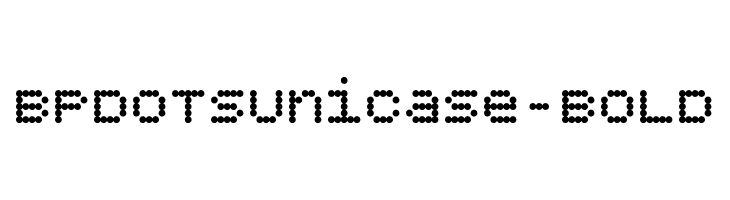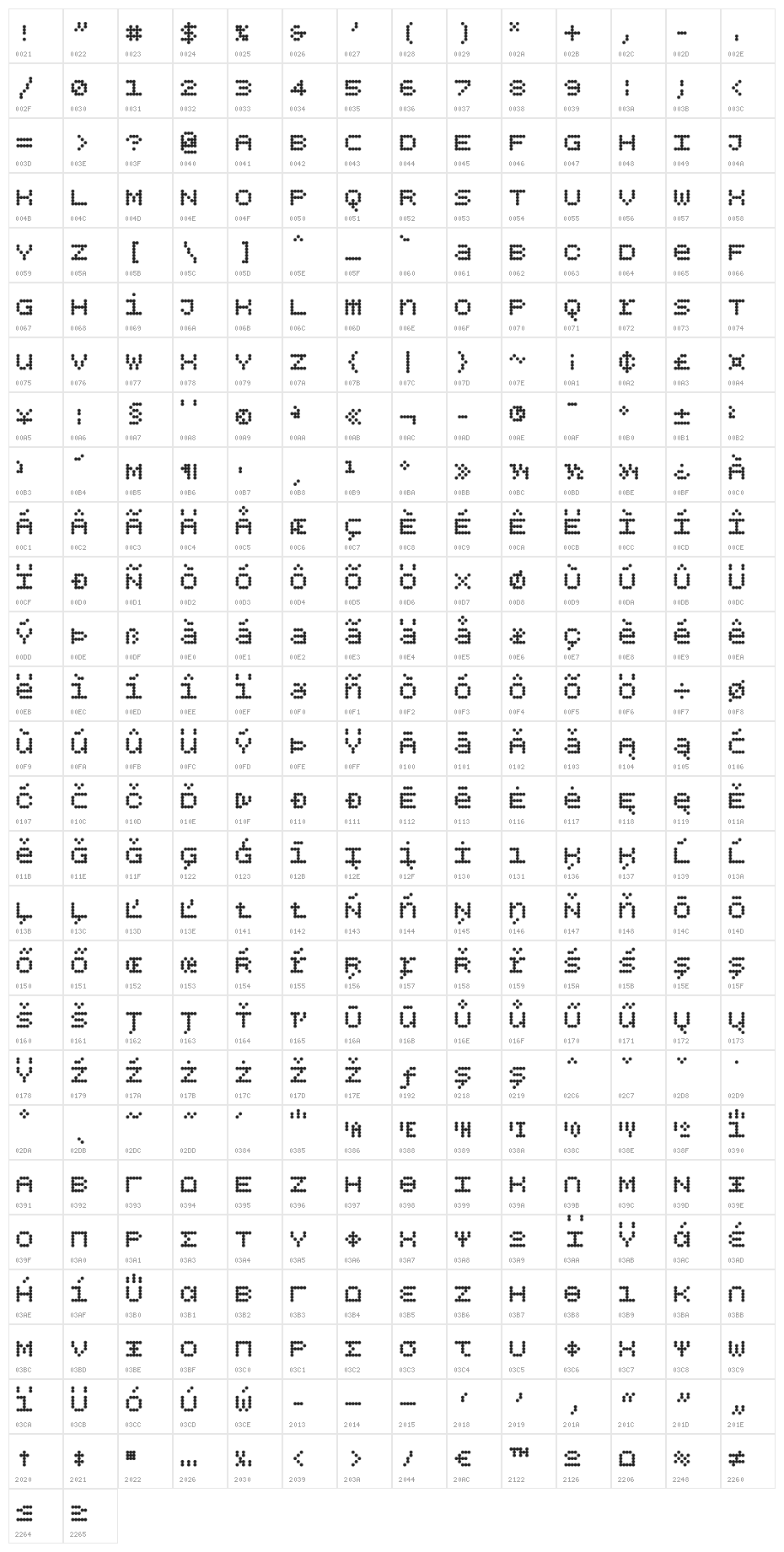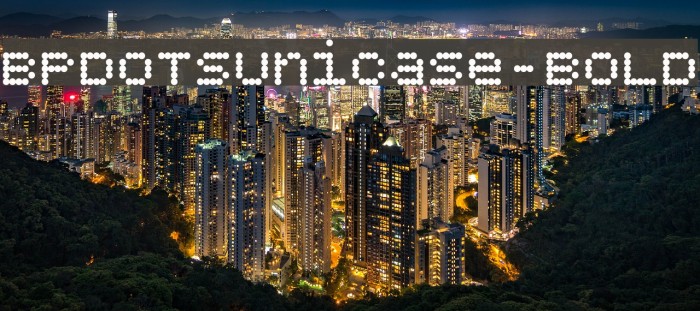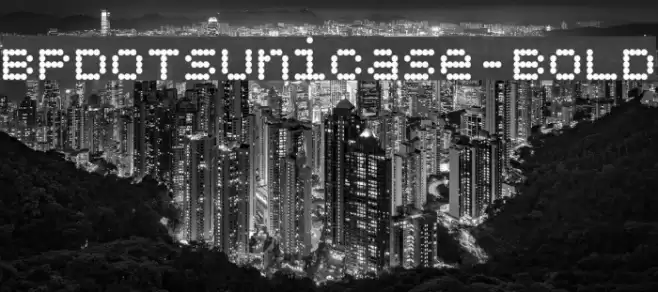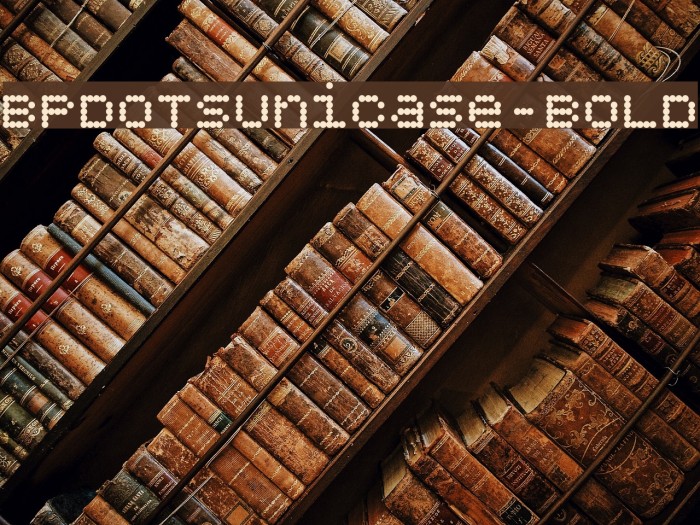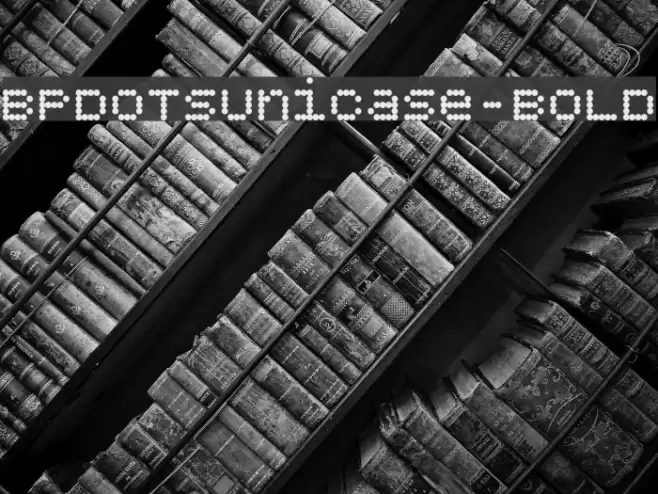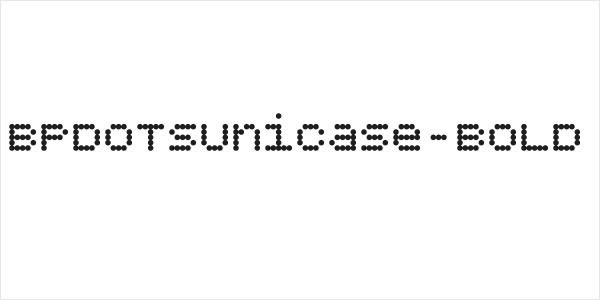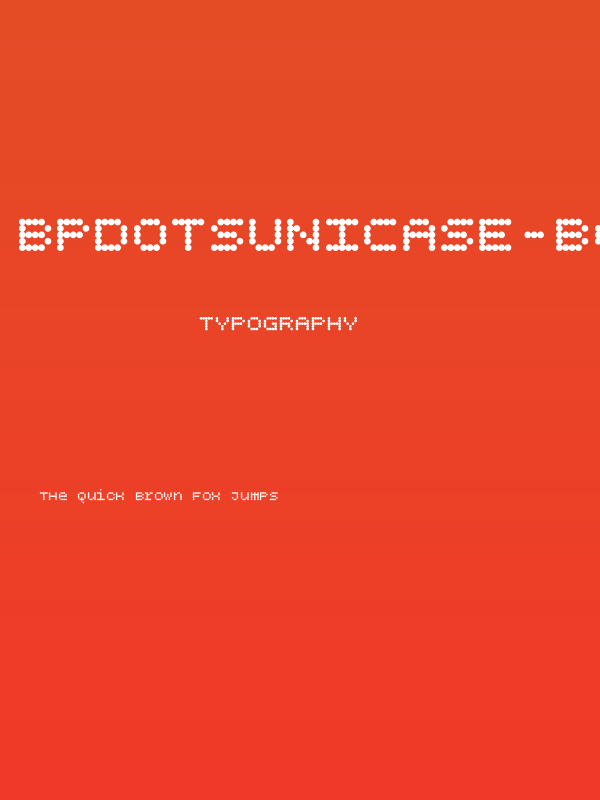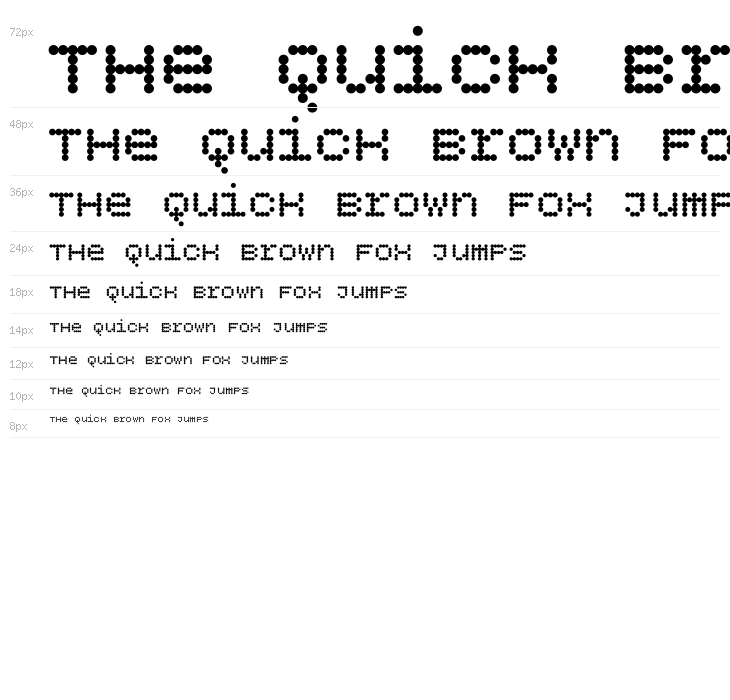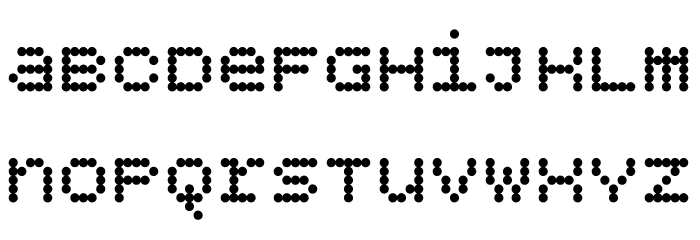
BPdotsUnicase-Bold Font
BPdotsUnicase-Bold Description
This font features a unique dotted design where each character is constructed from a series of evenly spaced dots, creating a modern and playful appearance. The characters maintain a consistent size and shape, giving the font a uniform look. The uppercase and lowercase letters are distinct yet harmonious, with numbers and special characters following the same dotted pattern. This design is eye-catching and ideal for creative projects that require a bold and unconventional typeface.
| Proposed Projects | Ideal for digital art, posters, children's books, and creative branding projects. |